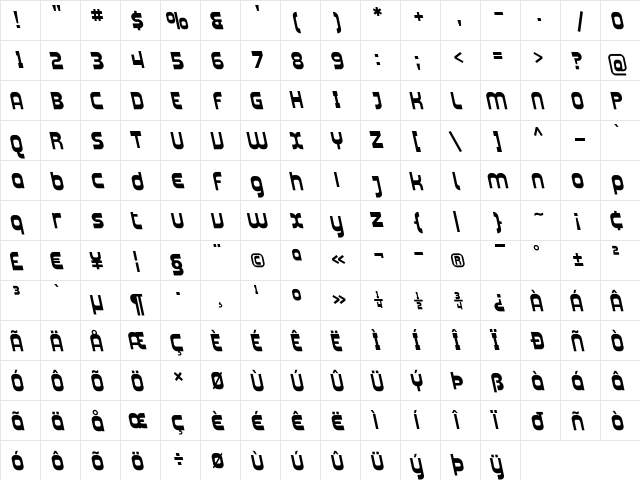
Plasmatica Rev Bold Italic
Design Context for Plasmatica Rev Typeface
Plasmatica Rev is a composed and adaptable typeface that performs quietly and consistently across a wide range of design contexts. The slanted form adds forward momentum and visual energy. Its bold stroke weight gives it real presence on the page.
Pro Tip: Use Plasmatica Rev for emphasis, pull quotes, and subheadings where its slanted energy can add rhythm to the layout.